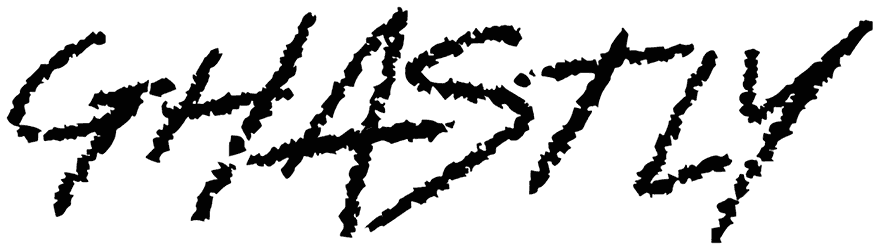
Ghastly Font
Ghastly is a fancy chalk font with an ominous aesthetic, making it ideal for themes like Halloween party flyers and posters, scary movie titles, and other such gloomy projects. Ghastly font makes up for the absence of lowercase characters with its bold and attention-grabbing capital letters. You may use it straight away in your future projects after downloading it from RB’s extensive font collection.